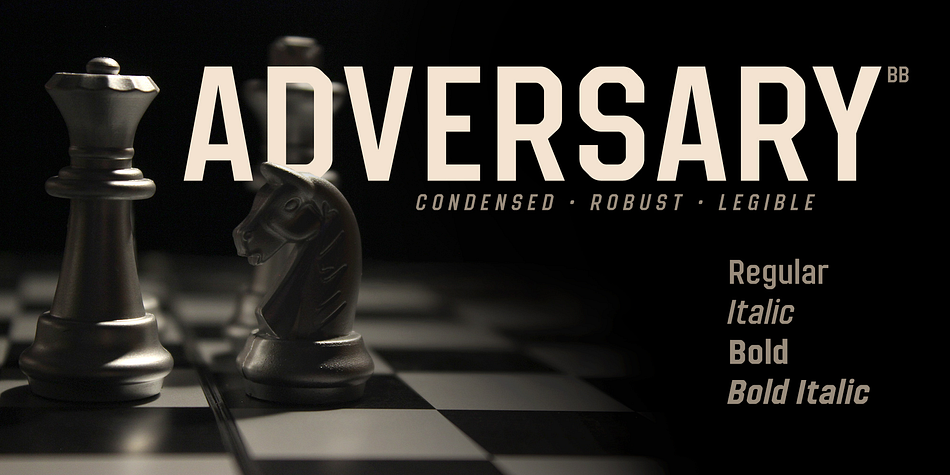
Adversary BB
Designed by Nate Piekos, Adversary BB is a display sans and sans serif font family. This typeface has four styles and was published by Blambot.
Adversary BB is a robust sans with a hint of retro-futuristic flavor. Originally created to be used in Blambot creator, Nate Piekos’s personal title block for design projects, Adversary BB is therefor very clean and super legible.